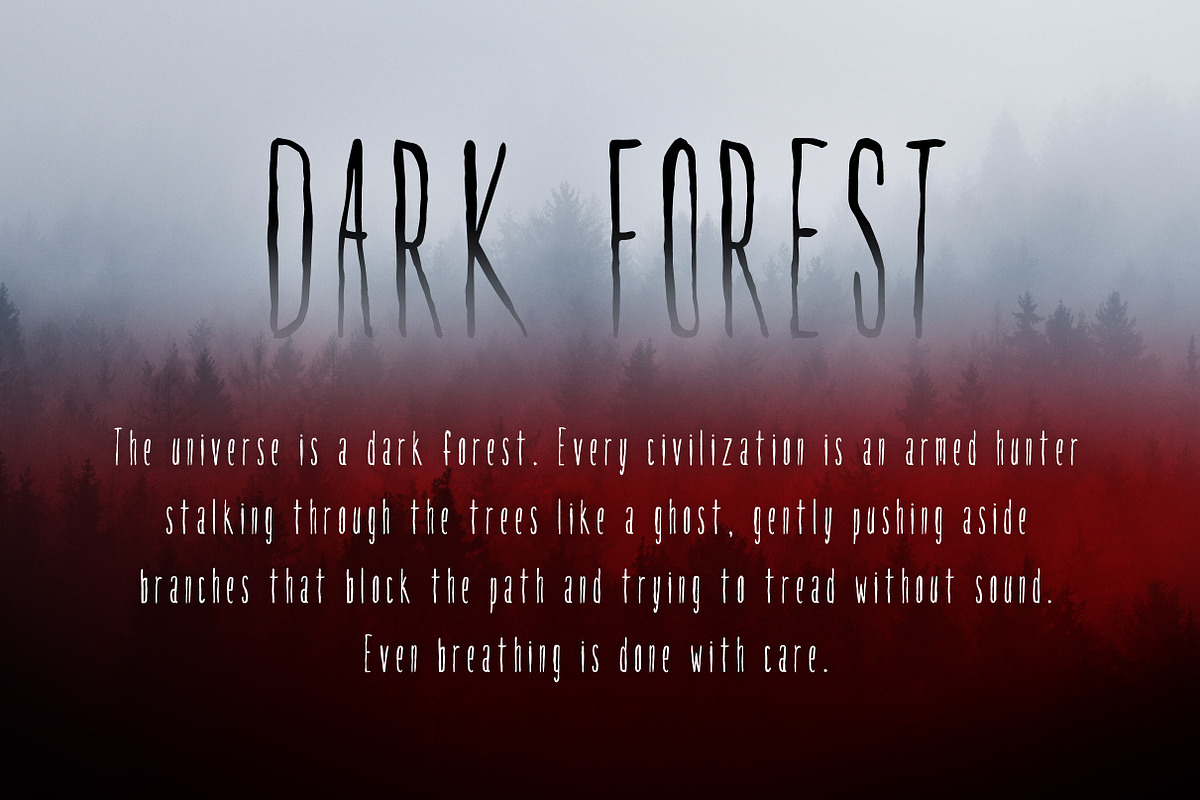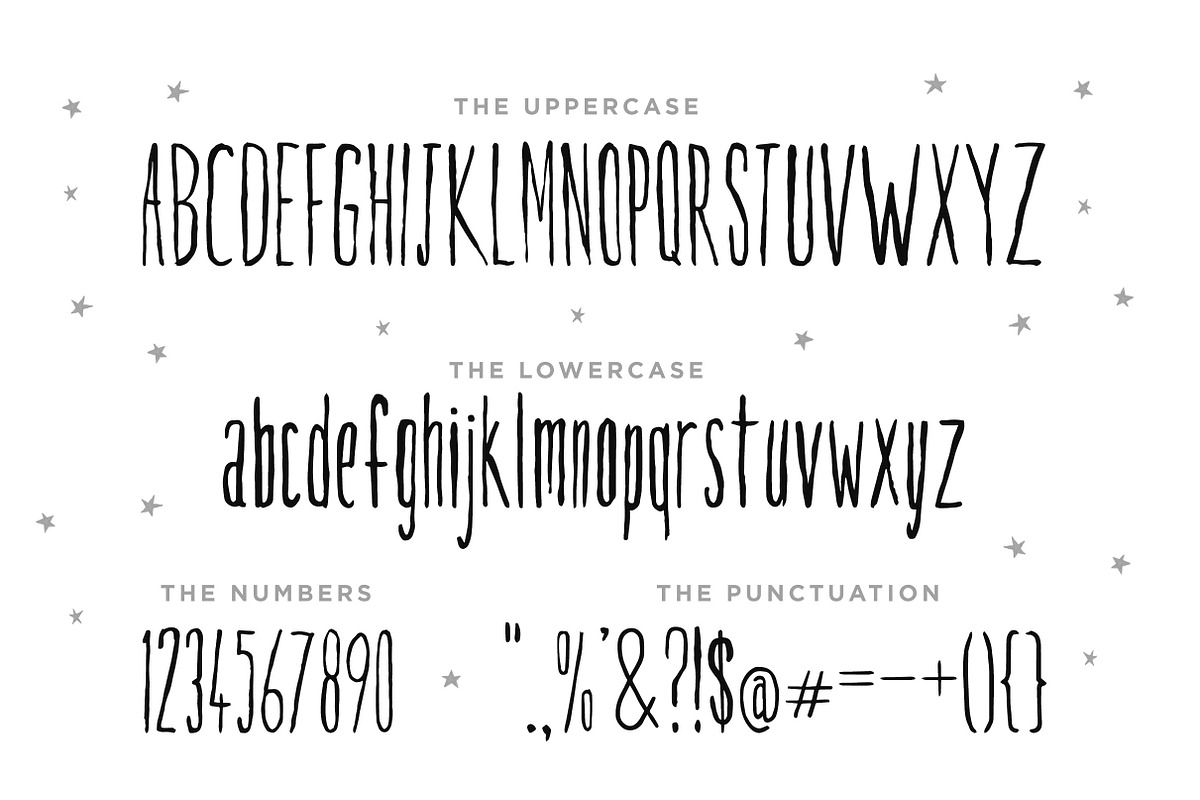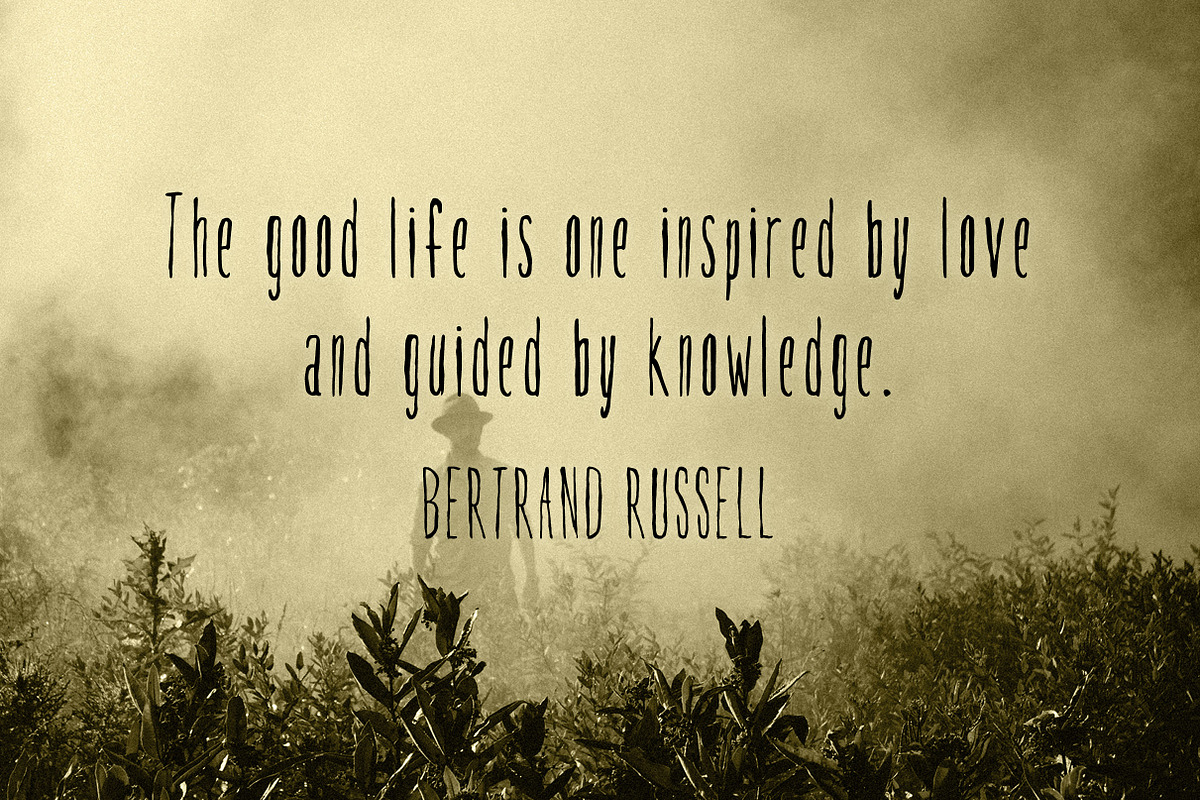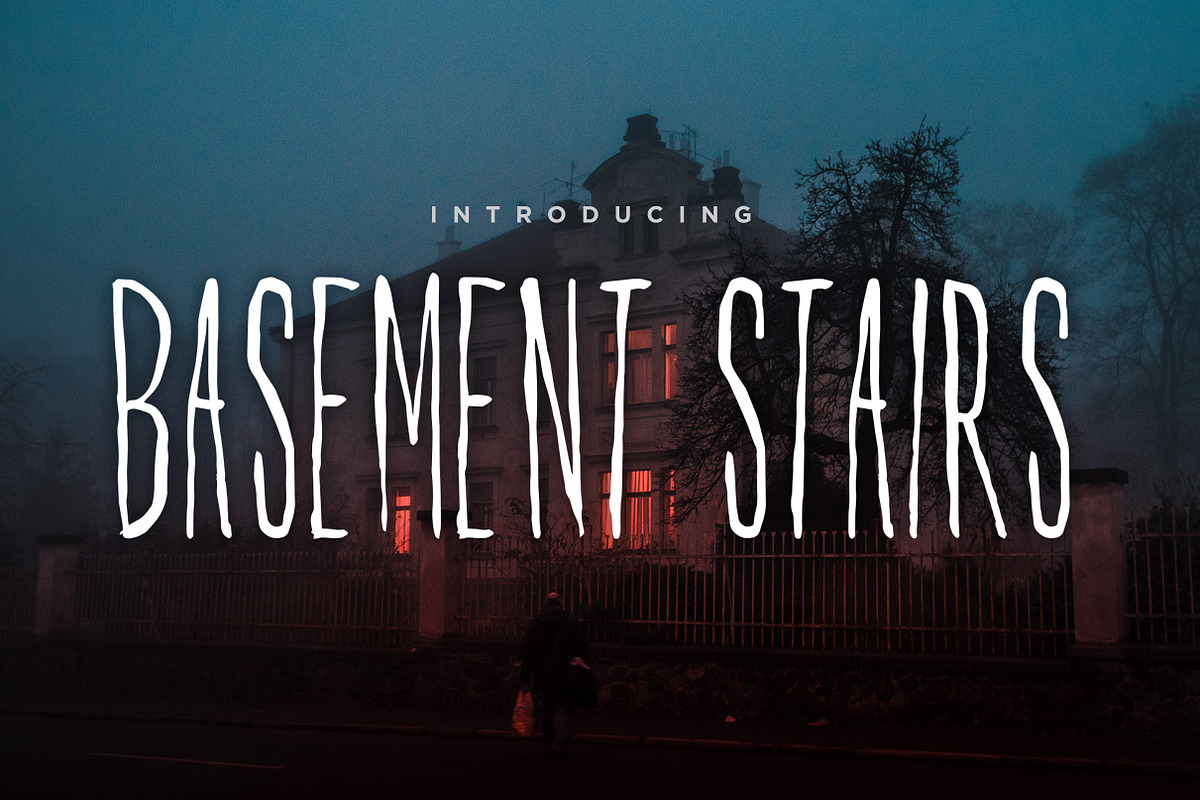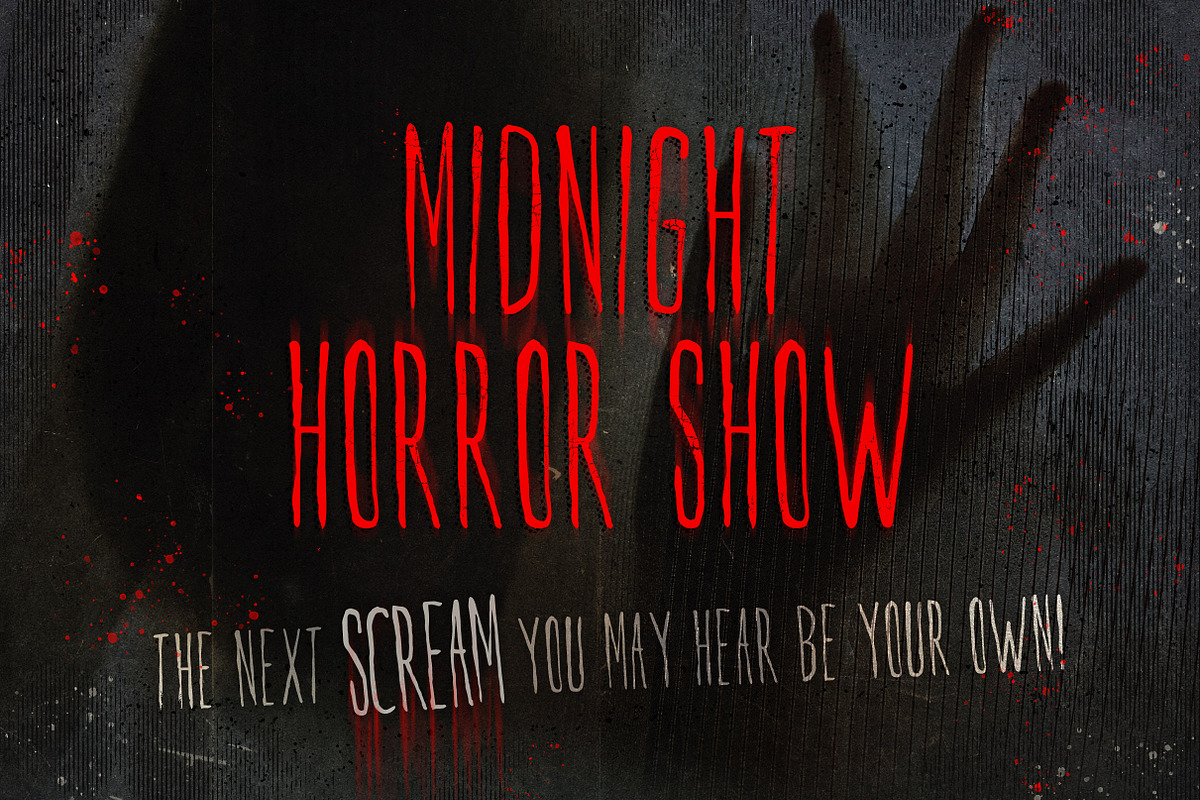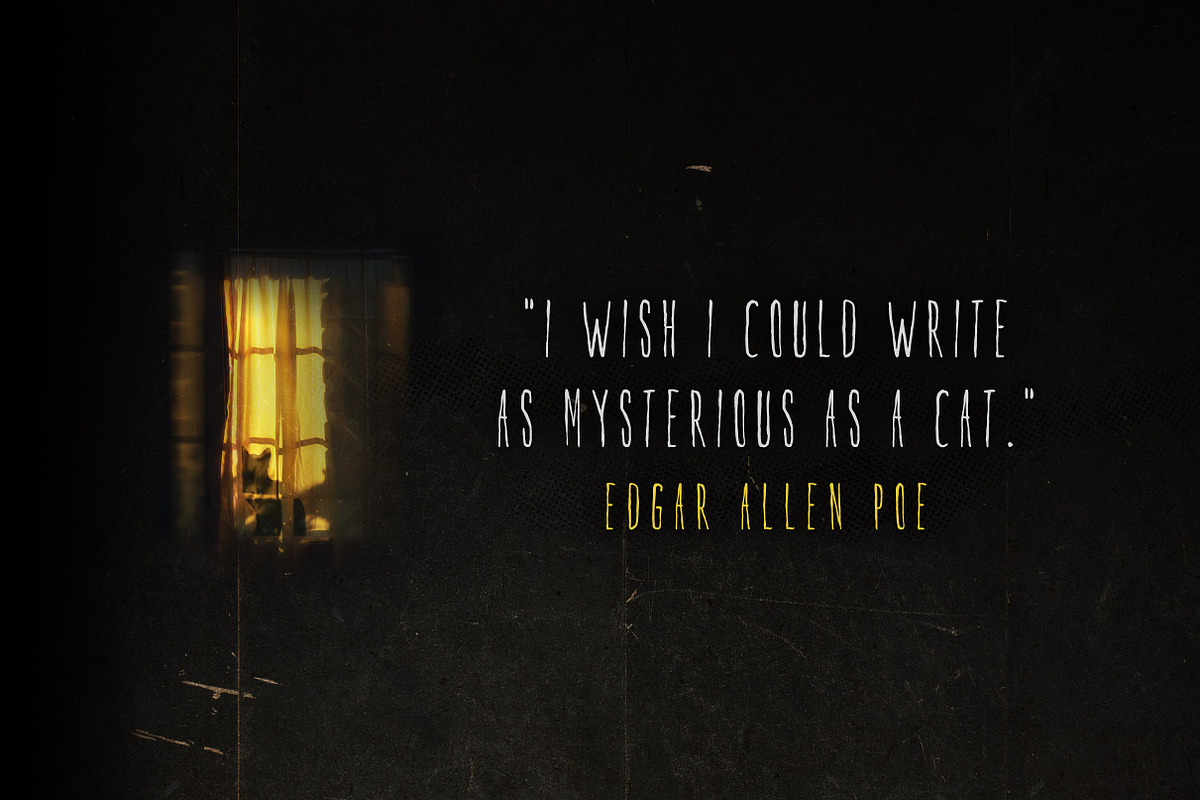
Basement Stairs Font
BASEMENT STAIRS is a hand written font. Great for posters, logos, graphic novels, album covers or any design that needs a spooky feel.
Basement Stairs Font by 3ora fits naturally into Branding, posters, packaging, typography.